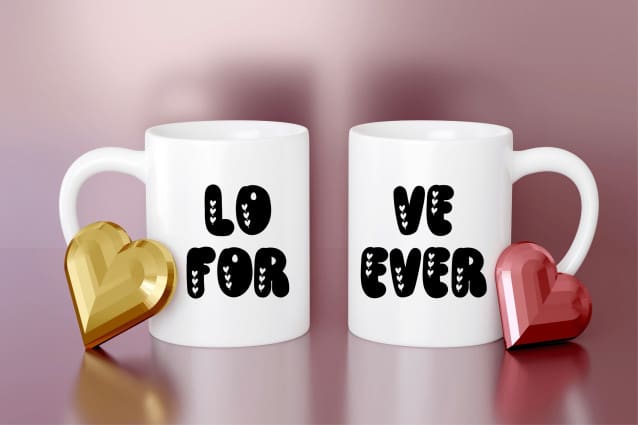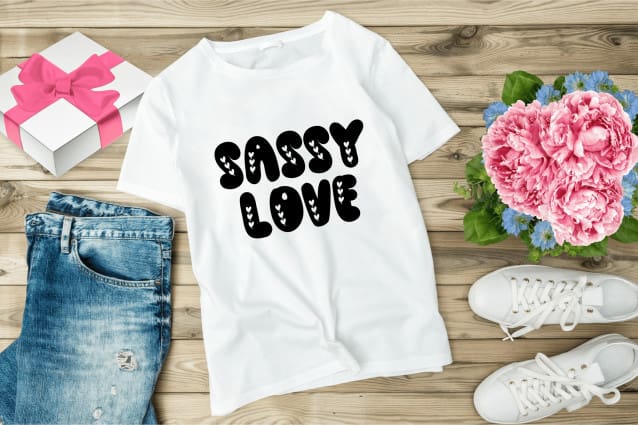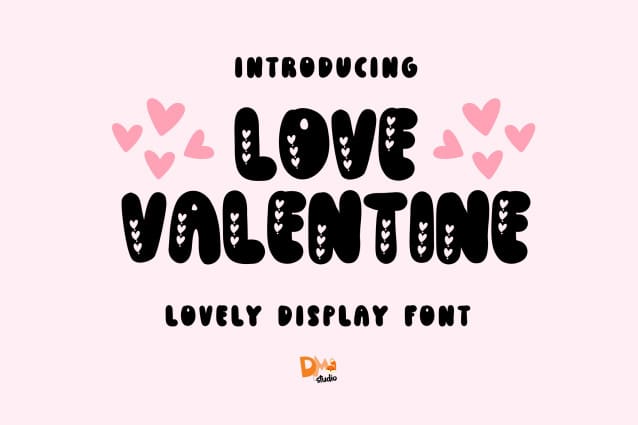
Love Valentine Display Font
Love Valentine Display Font is a romantic and elegant typeface that embodies the charm and warmth of Valentine’s Day. With its graceful curves and heart-inspired details, this font is perfect for all things love-related – from wedding invitations and greeting cards to social media posts and personal projects. Designed to bring a sense of passion and sweetness, Love Valentine Display Font is ideal for anyone looking to add a romantic touch to their designs.